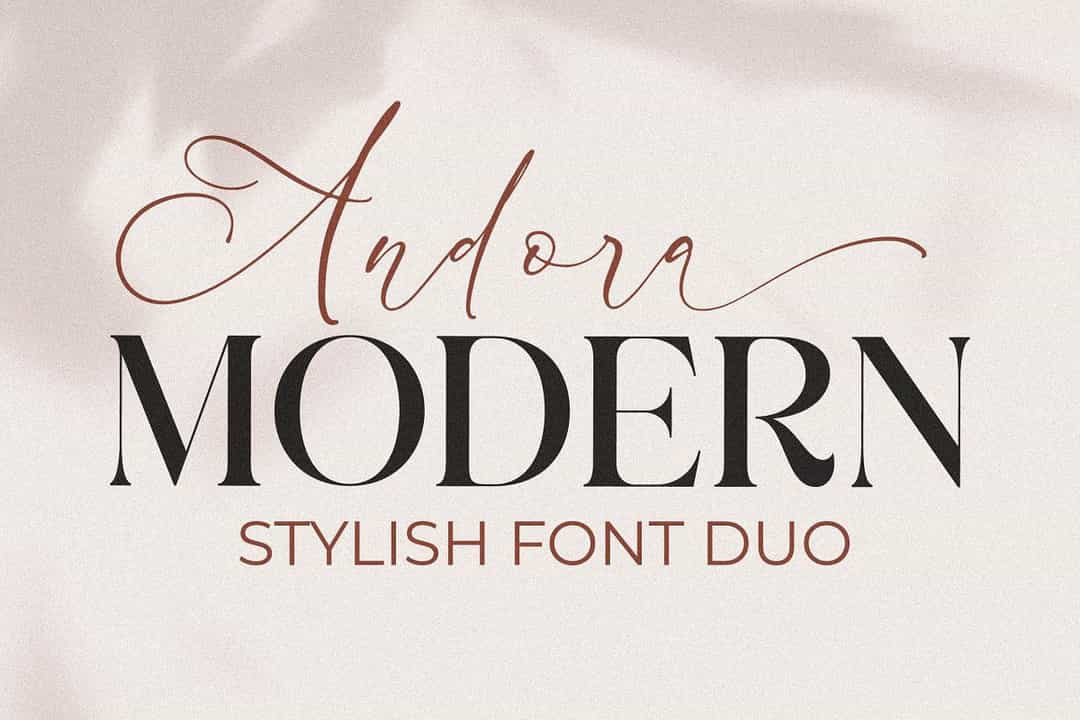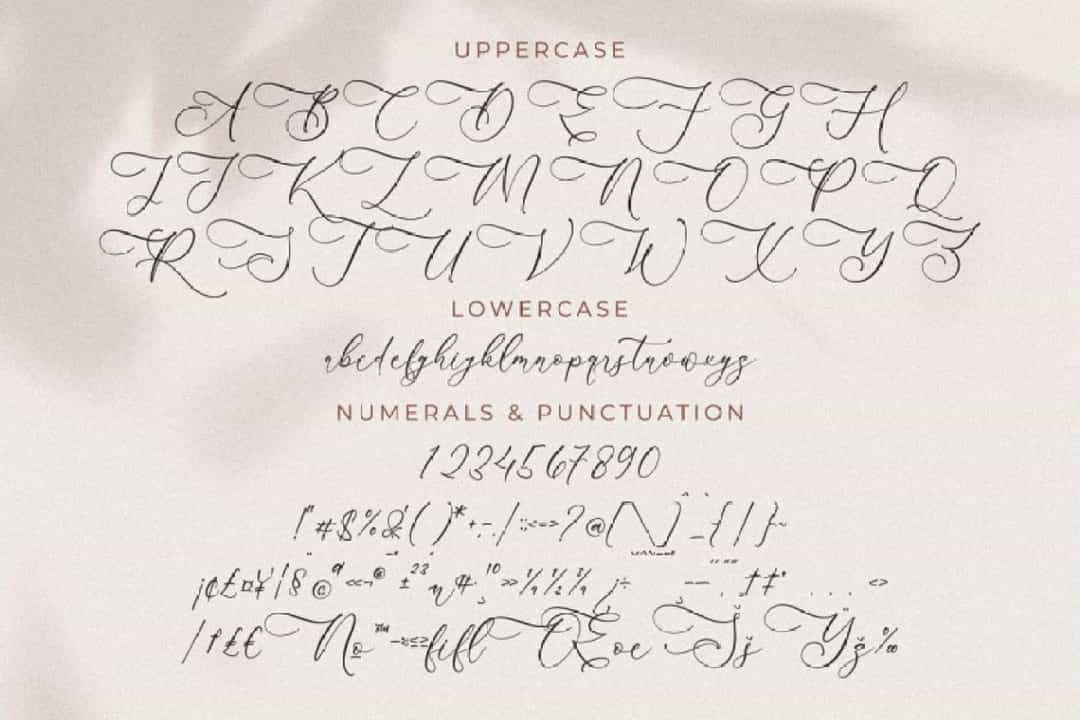
Andora Modern is an exquisite and gorgeous combination of fonts (serif and script) that makes an eye-catching addition to any project. Be enchanted by its classic yet contemporary style and create spectacular designs! PUA encoded, Andora Modern allows access to all its incredible symbols and ligatures quickly!